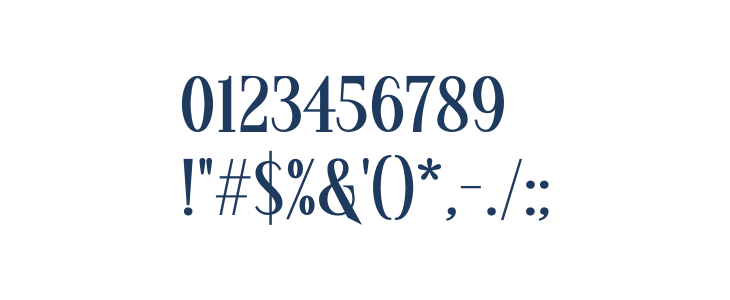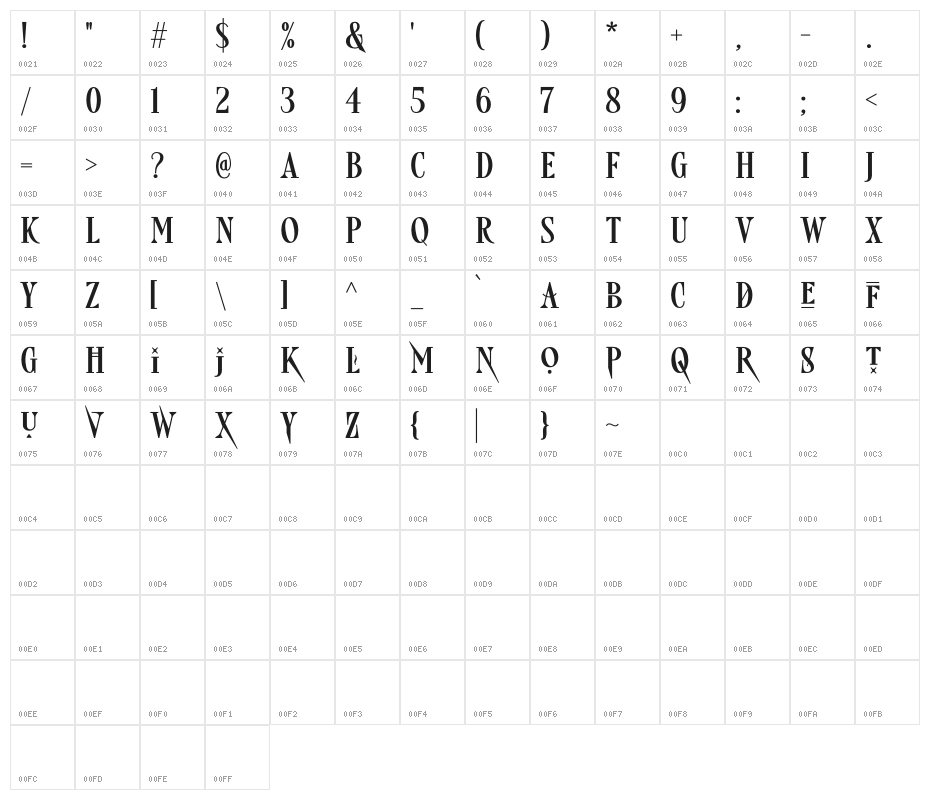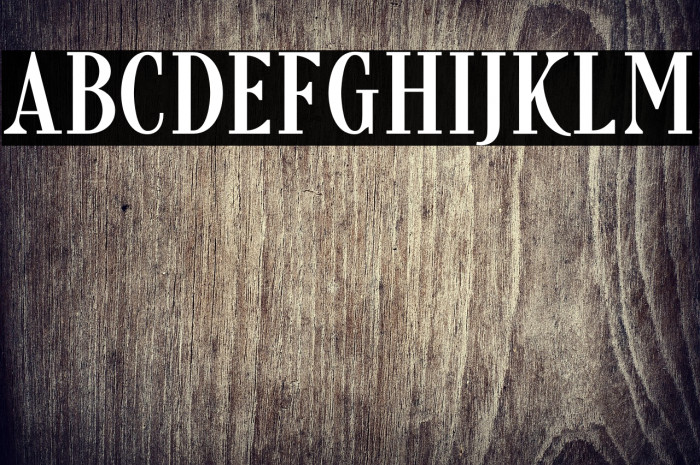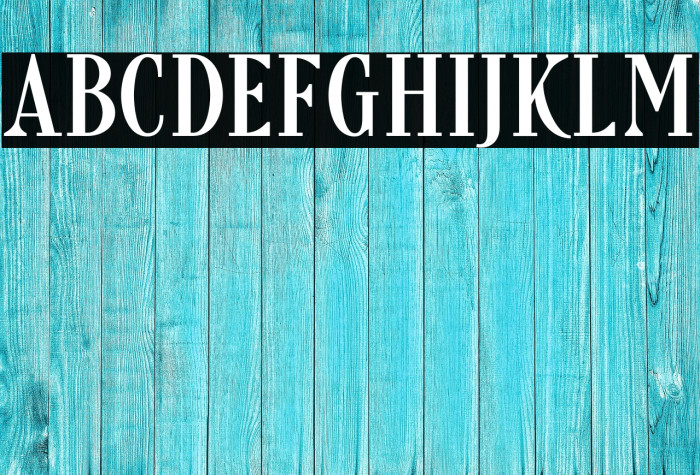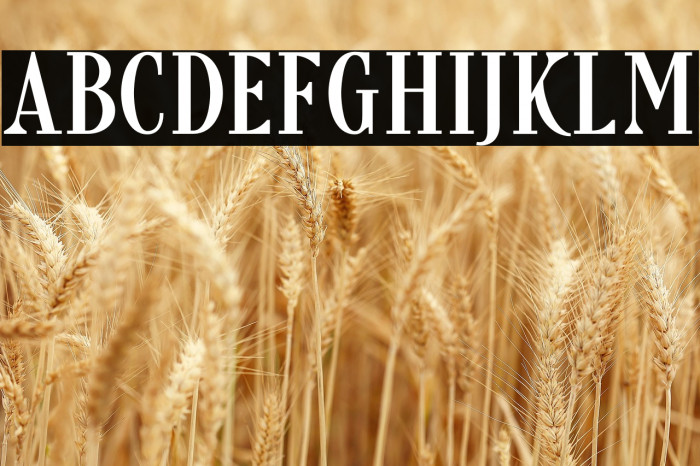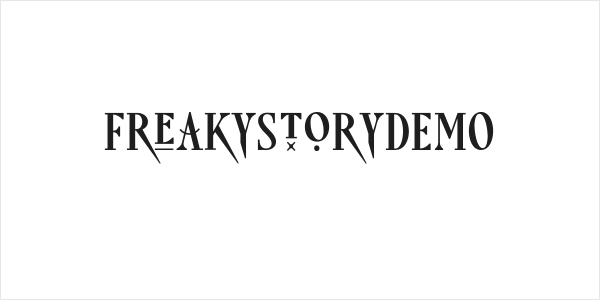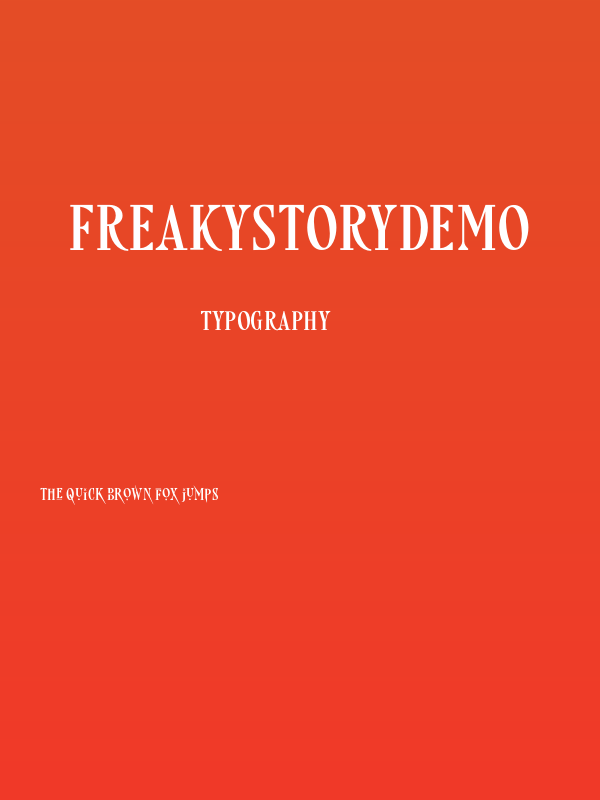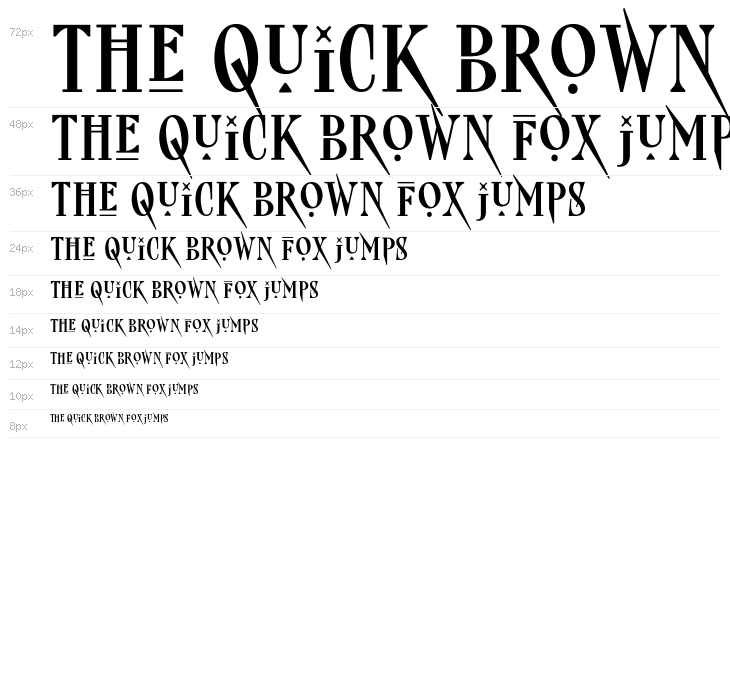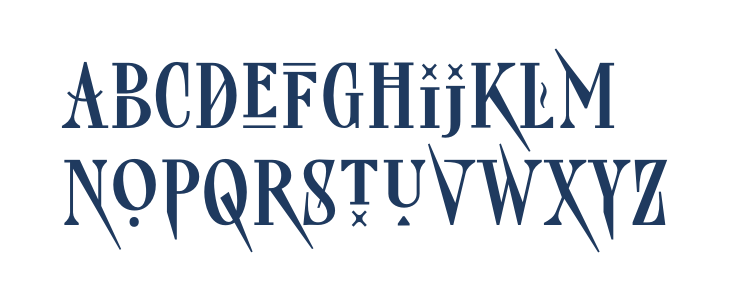
FreakyStoryDEMO Font
FreakyStoryDEMO Description
This font features a striking and unconventional design, characterized by sharp angles and unique embellishments on each character. The uppercase letters exhibit a dramatic flair with exaggerated serifs and varying line thicknesses, creating a sense of movement and energy. The lowercase letters maintain this dynamic style, offering a cohesive look across different cases. Numbers are bold and maintain the same stylistic elements, ensuring consistency throughout. Special characters are equally distinctive, adding to the font's overall bold and artistic appearance. This font's unique characteristics make it stand out, offering a perfect blend of creativity and readability.